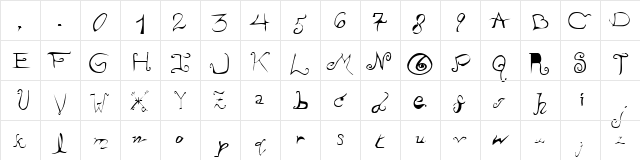
Piss off the Professor Normal
Design Context for Piss off the Professor Typeface
Piss off the Professor is a composed and adaptable typeface that performs quietly and consistently across a wide range of design contexts.
Pro Tip: Use Piss off the Professor in both headline and body roles to test its range before committing to a single application.